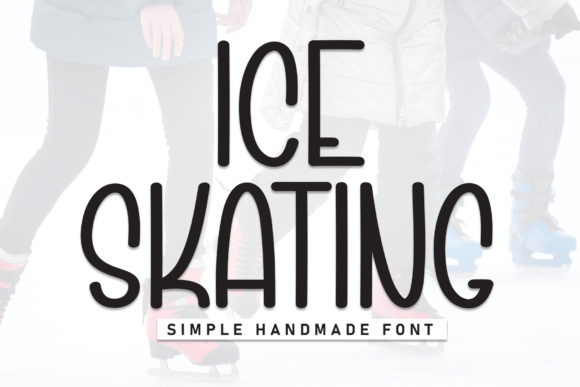
Ice Skating Font: A Perfect Blend of Simplicity and Friendliness
Ice Skating is a casual and neat display font that has gained popularity for its unique combination of simplicity and friendly approachability. This font is designed to capture the essence of modern handwritten typography with a polished finish, making it an ideal choice for various design projects. In this article, we will explore the features, benefits, and uses of the Ice Skating font, and discuss how it can elevate your design game.
What is Ice Skating Font?
Ice Skating is a display font that boasts clean lines, balanced letterforms, and subtle rounded edges. Its design is inspired by modern handwritten typography, with a focus on simplicity and legibility. The font’s creator aimed to develop a typeface that is both crisp and charming, making it suitable for a wide range of applications.
Key Features of Ice Skating Font
- Clean Lines: The font features clean lines that give it a modern and sleek appearance.
- Balanced Letterforms: The letterforms are carefully crafted to ensure balance and harmony, making the font easy to read.
- Subtle Rounded Edges: The subtle rounded edges add a touch of friendliness and approachability to the font.
- Polished Finish: The font has a polished finish that gives it a professional look and feel.
Benefits of Using Ice Skating Font
The Ice Skating font offers several benefits that make it an attractive choice for designers. Some of the key benefits include:
- Versatility: The font is versatile and can be used for various design projects, including branding, headlines, packaging, and digital content.
- Legibility: The font is highly legible, making it suitable for use in body text and captions.
- Emotional Connection: The font’s friendly and approachable vibe helps create an emotional connection with the audience.
- Professional Look: The font’s polished finish gives it a professional look and feel, making it suitable for use in high-end designs.
Uses of Ice Skating Font
The Ice Skating font is suitable for a wide range of design projects, including:
- Branding: The font can be used to create logos, business cards, and other branding materials.
- Headlines: The font’s bold and attention-grabbing style makes it suitable for use in headlines and titles.
- Packaging: The font can be used on product packaging to add a touch of personality and whimsy.
- Digital Content: The font can be used in digital content, such as blog posts, social media graphics, and email newsletters.
How to Use Ice Skating Font Effectively
To get the most out of the Ice Skating font, here are some tips for using it effectively:
- Pair it with Other Fonts: Pair the Ice Skating font with other fonts to create a unique and visually appealing combination.
- Use it in Large Sizes: The font looks best in large sizes, so use it for headlines and titles.
- Experiment with Colors: Experiment with different colors to find the perfect combination that matches your brand’s identity.
- Keep it Simple: Keep your design simple and avoid clutter to ensure the font stands out.
In conclusion, the Ice Skating font is a versatile and charming typeface that can elevate your design game. Its unique combination of simplicity and friendliness makes it suitable for a wide range of design projects. With its clean lines, balanced letterforms, and subtle rounded edges, this font is sure to capture the attention of your audience and leave a lasting impression.
- What is the Ice Skating font? The Ice Skating font is a casual and neat display font that combines simplicity with a friendly, approachable vibe.
- What are the key features of the Ice Skating font? The font features clean lines, balanced letterforms, and subtle rounded edges, making it suitable for various design projects.
- What are the benefits of using the Ice Skating font? The font offers several benefits, including versatility, legibility, emotional connection, and a professional look.
- How can I use the Ice Skating font effectively? To use the font effectively, pair it with other fonts, use it in large sizes, experiment with colors, and keep your design simple.